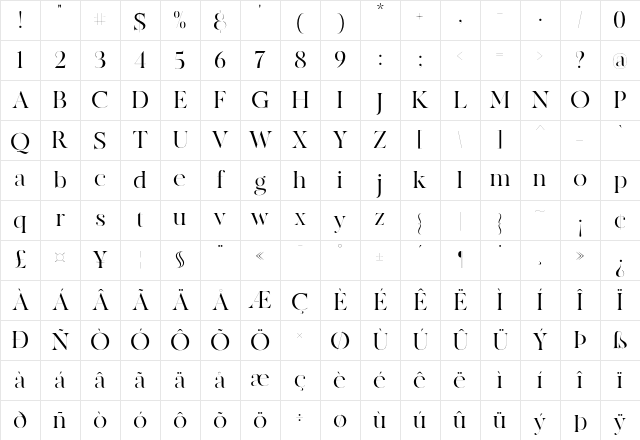
Complete MADE Canvas Regular glyph index. Displaying only characters natively supported by MADE Canvas Regular font.
MADE Canvas is a composed and adaptable typeface that performs quietly and consistently across a wide range of design contexts.